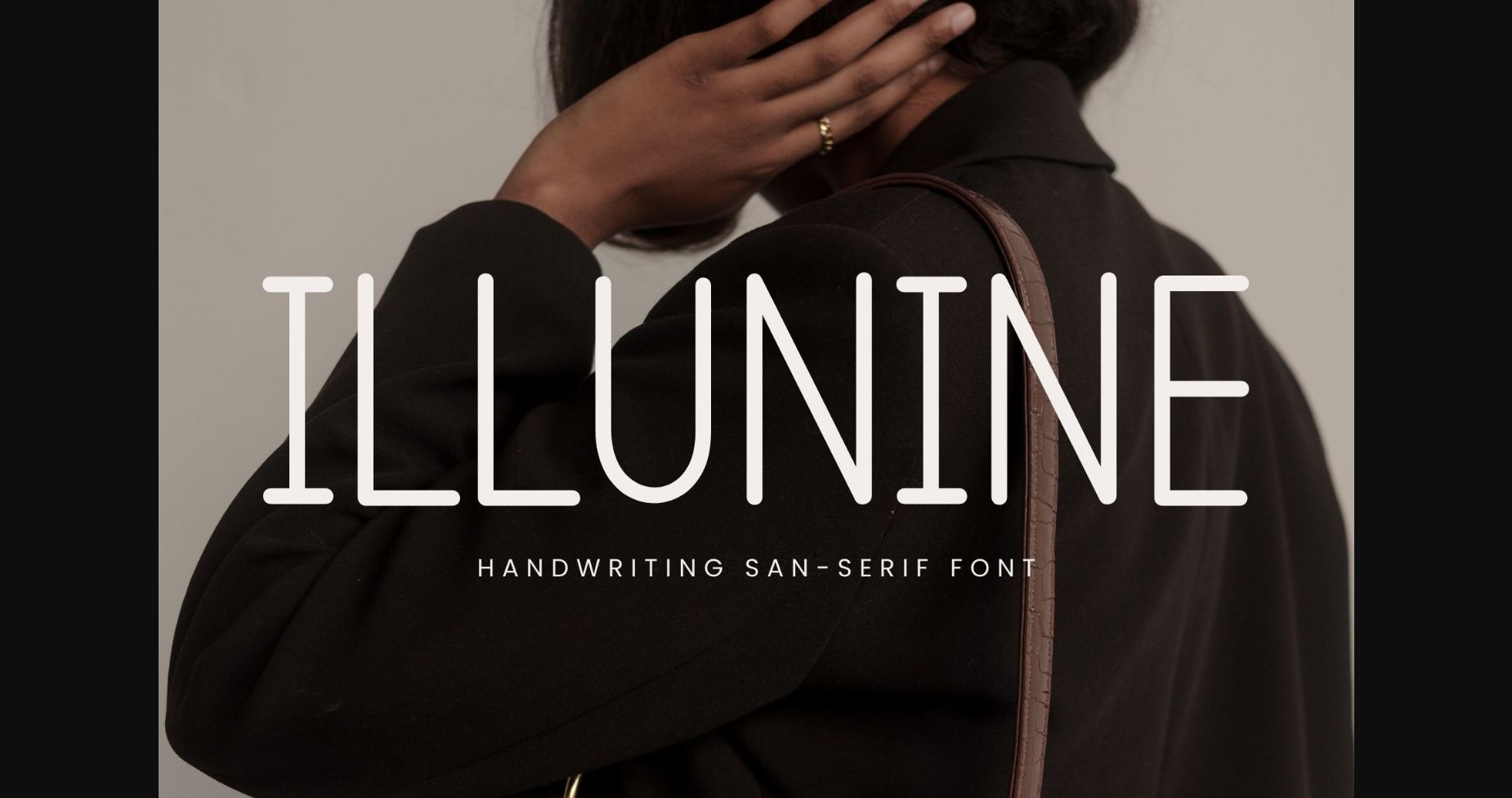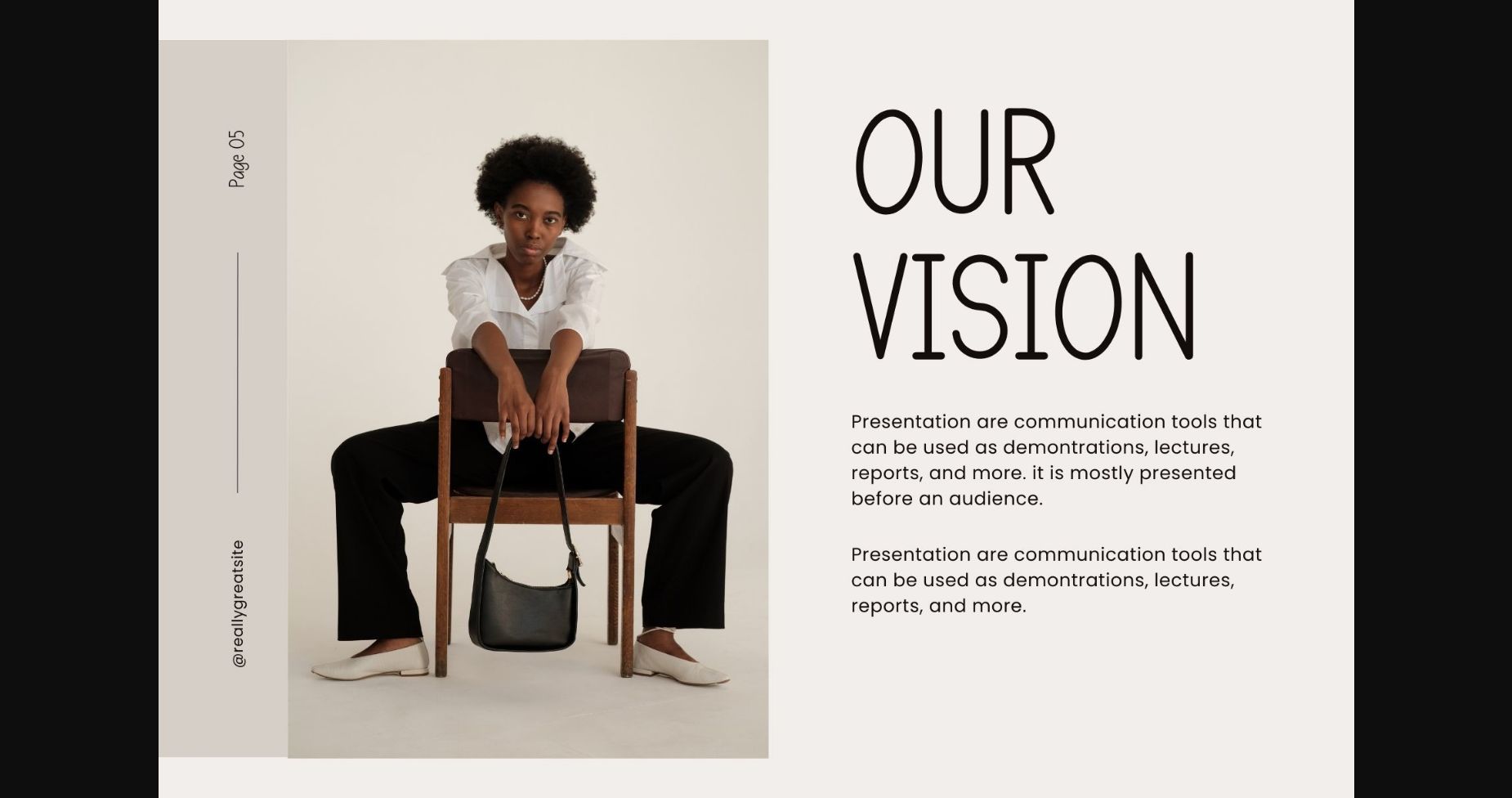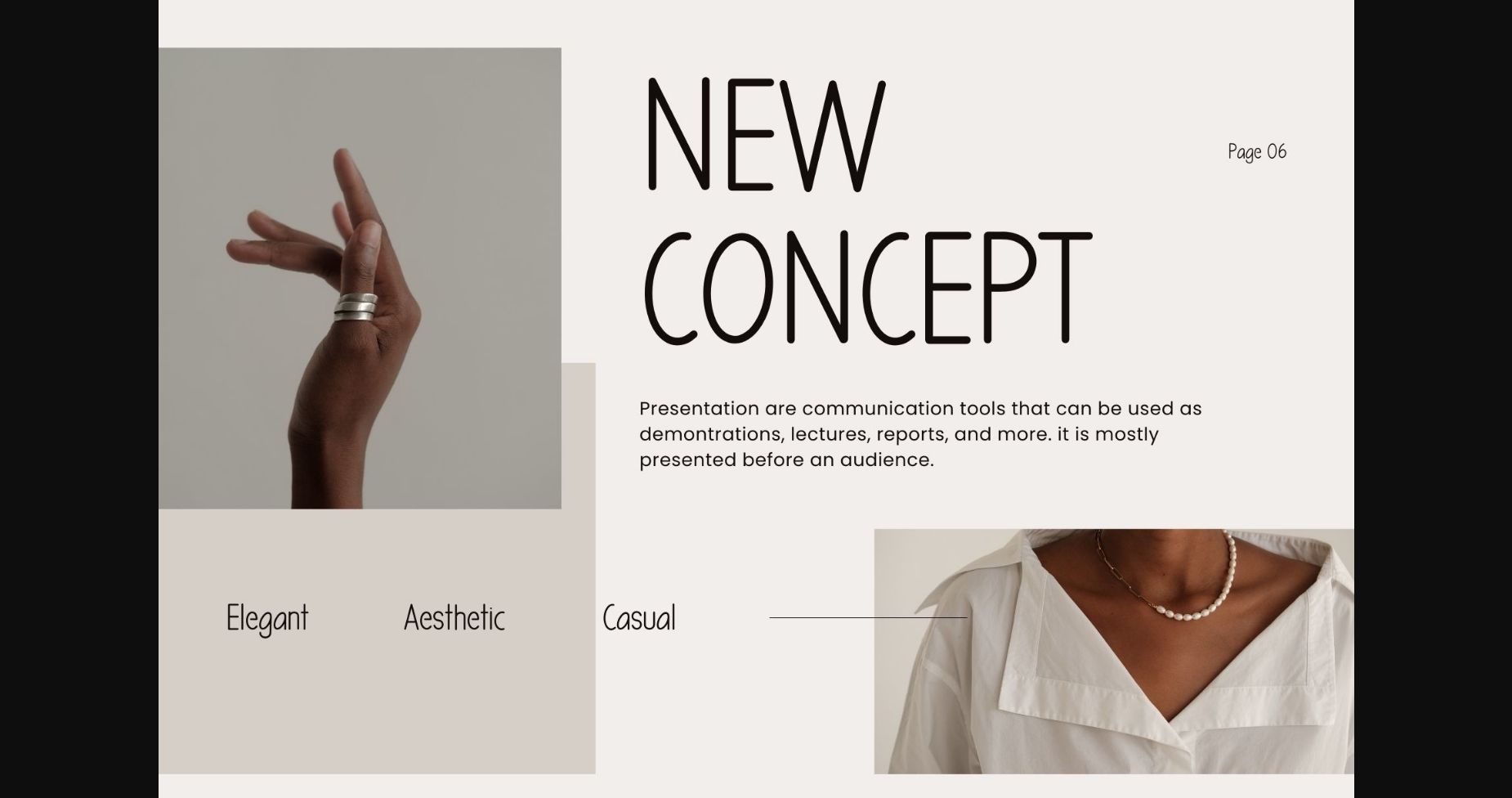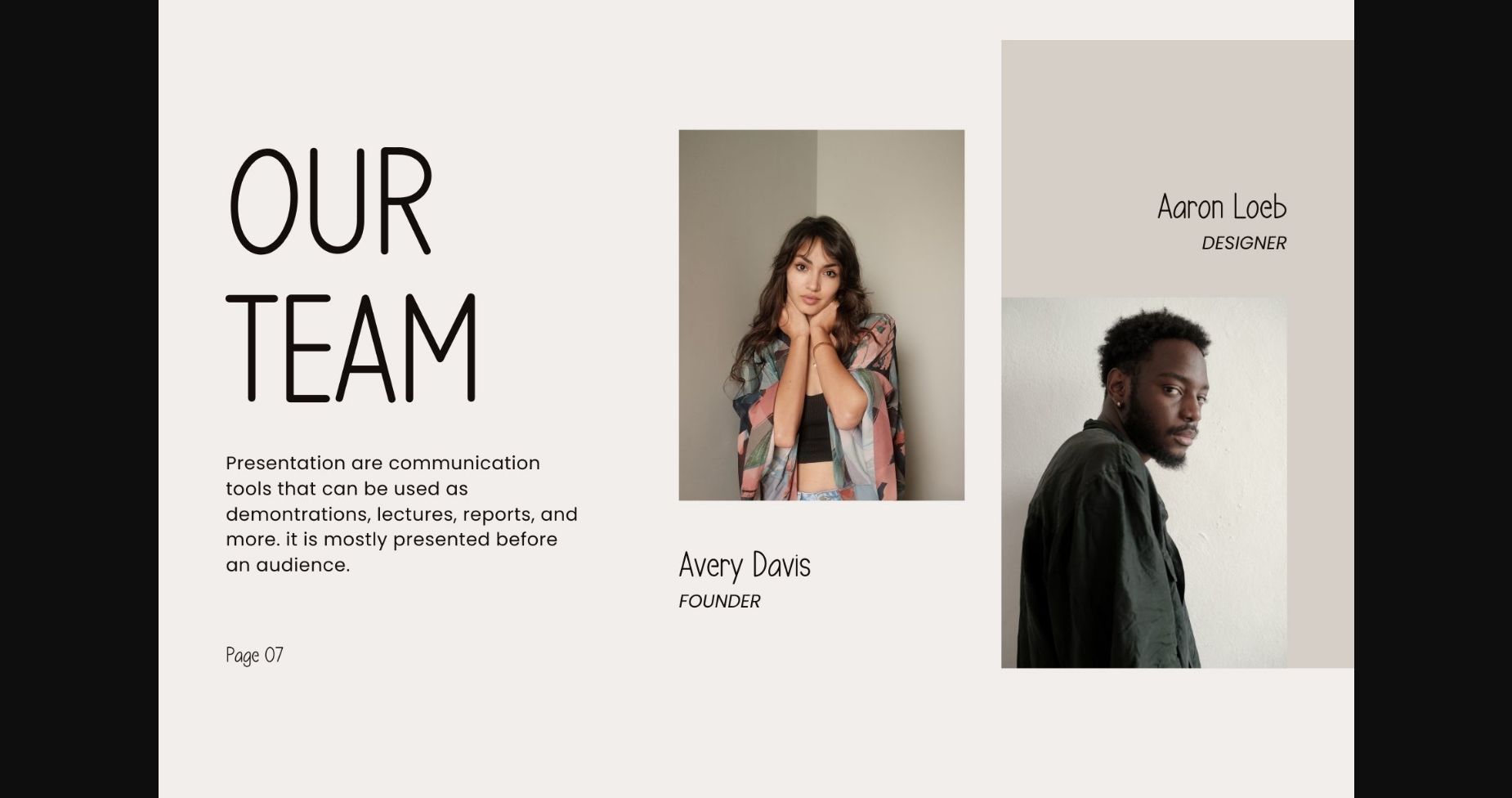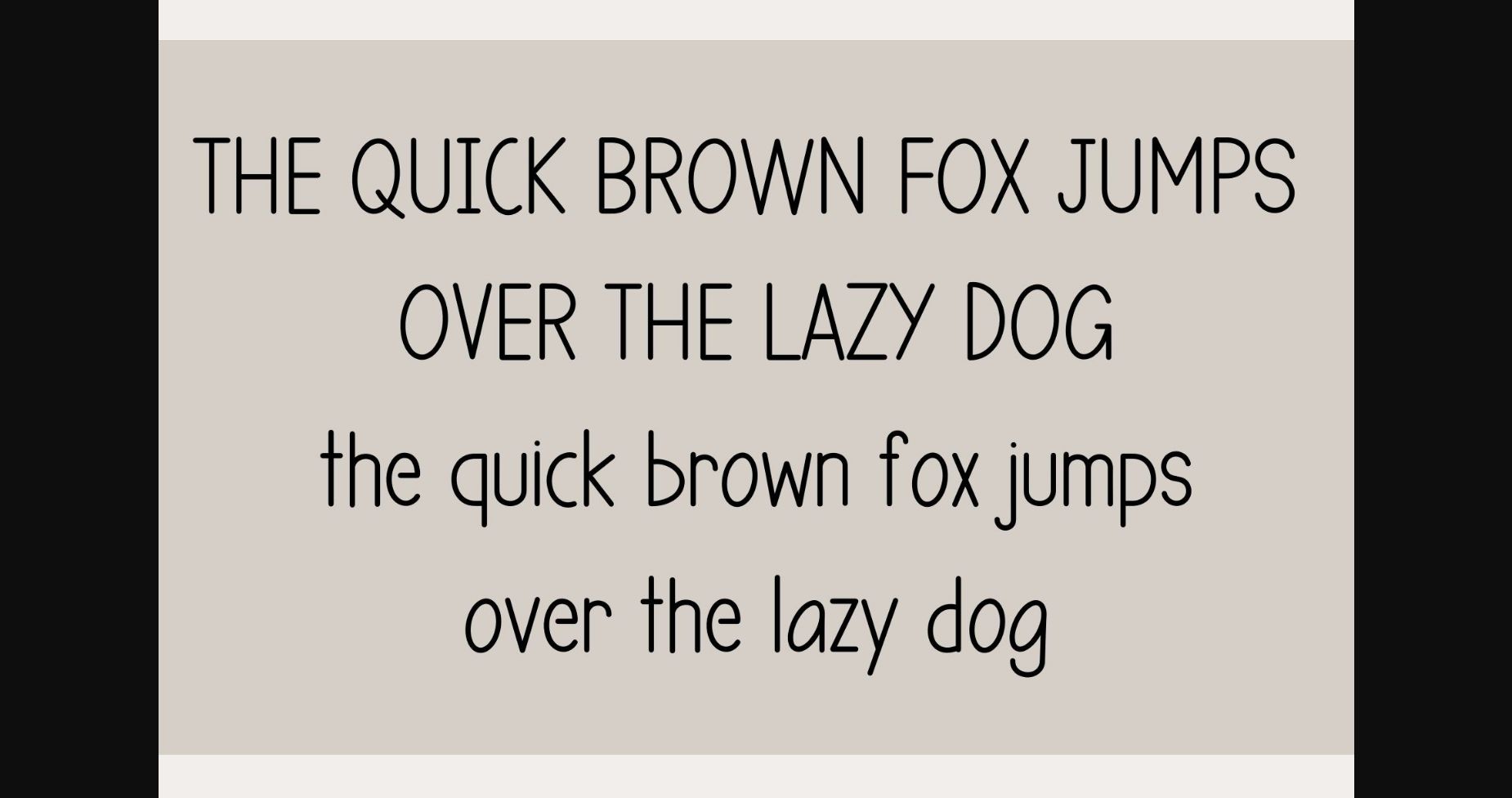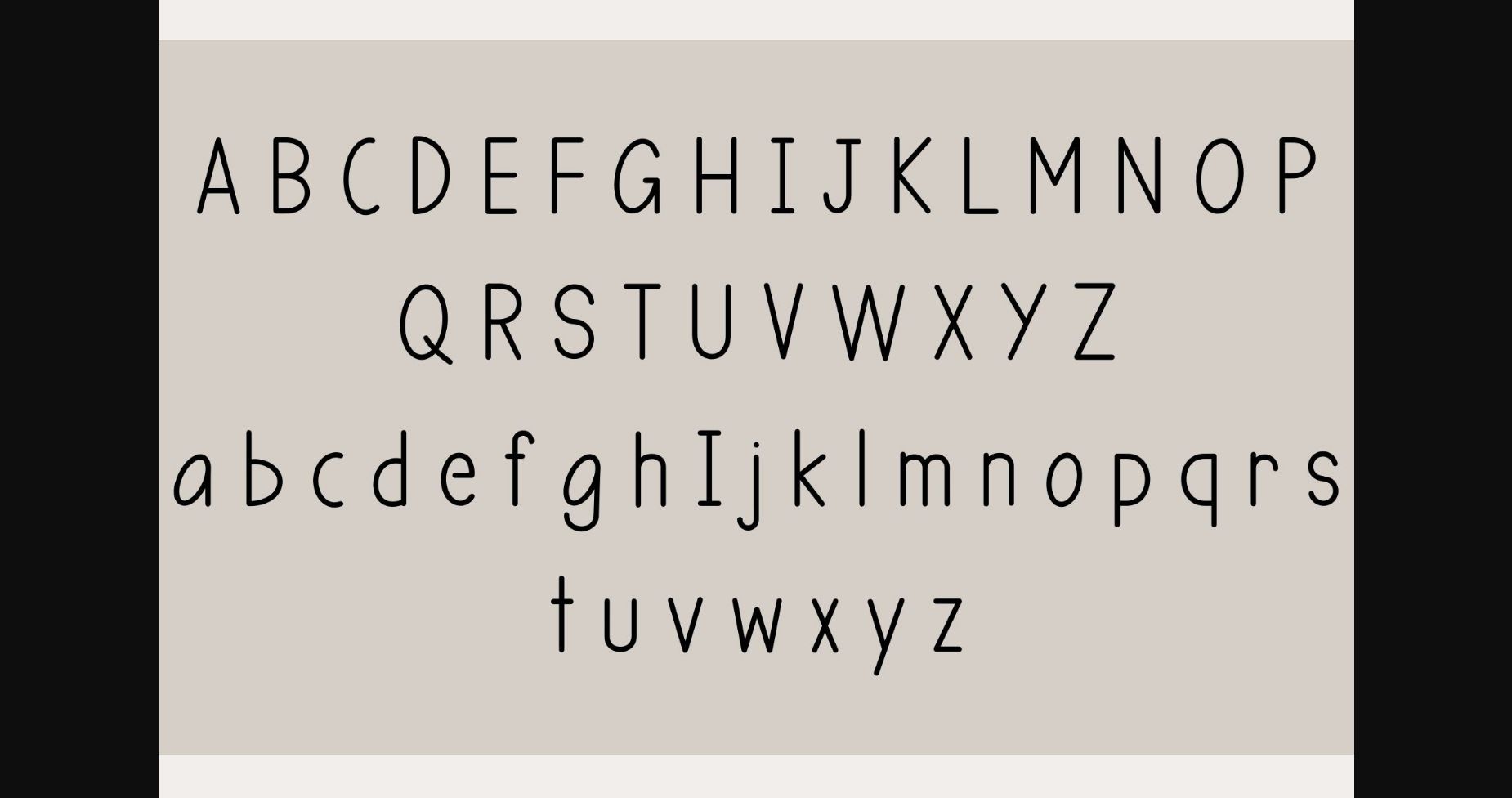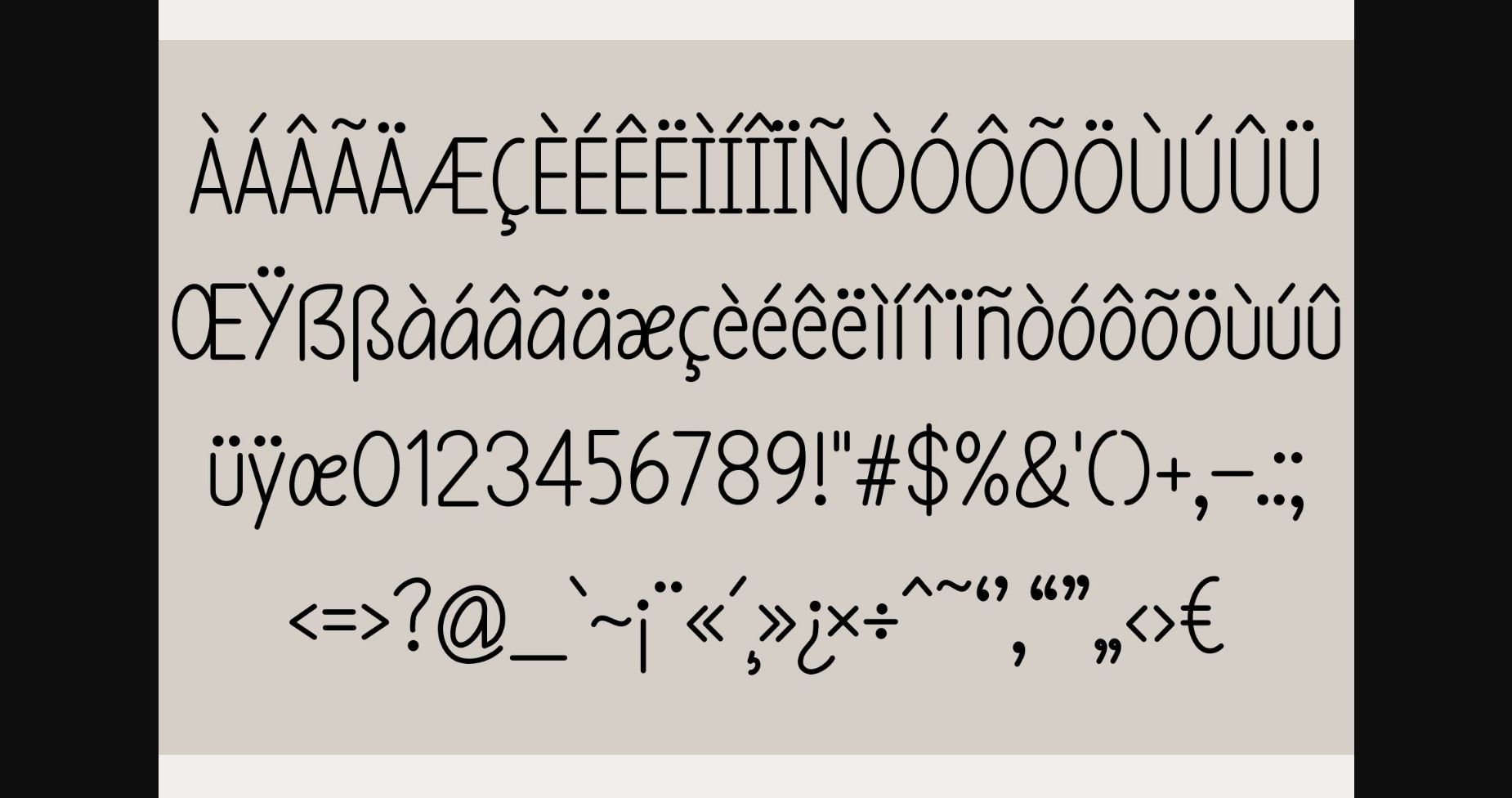
HomeSans Serif FontsIllunine Font Sans Serif Fonts Illunine Font FacebookXPinterestWhatsApp 1 of 9 ... Illunine Font Poster 2... Illunine Font Poster 3... Illunine Font Poster 4... Illunine Font Poster 5... Illunine Font Poster 6... Illunine Font Poster 7... Illunine Font Poster 8... Illunine Font Poster 9... About Illunine Font Illunine is a cute, handwritten font. This playful sans-serif will look so good on your invites, cards, logos, and any other fun projects you are working on. DOWNLOAD NOW People also explored Daytime Font Colt Soft Happy Monday Font Valentine Font Marshynha Lovelytta Font Master of Poster Bouled Font Hello World Font Love Homework Font 299 0 TagsIllunine Font Previous articleLettle Power FontNext articleSavannah Font LEAVE A REPLY Cancel reply Comment: Please enter your comment! Name:* Please enter your name here Email:* You have entered an incorrect email address! Please enter your email address here Website: Save my name, email, and website in this browser for the next time I comment. Personal Use Free Nulshock Bold Personal Use Free Read more about this font Abingdon Personal Use Free Read more about this font Coolvetica Font Personal Use Free Read more about this font Elsabetha Personal Use Free Read more about this font BLOG Free Fonts Risk: Why Free Fonts Can Be Dangerous for Designers Free Fonts Risk: Why Free Fonts Can Be Dangerous for Designers Using free fonts is a common practice in web and graphic design. However, the... The 10 Best Handwriting Fonts to Add Personality to Your Designs How to Cut Any Font on Cricut: Convert a Font to SVG (Free) Best Fonts for T-Shirt Design – Top 2025 Picks